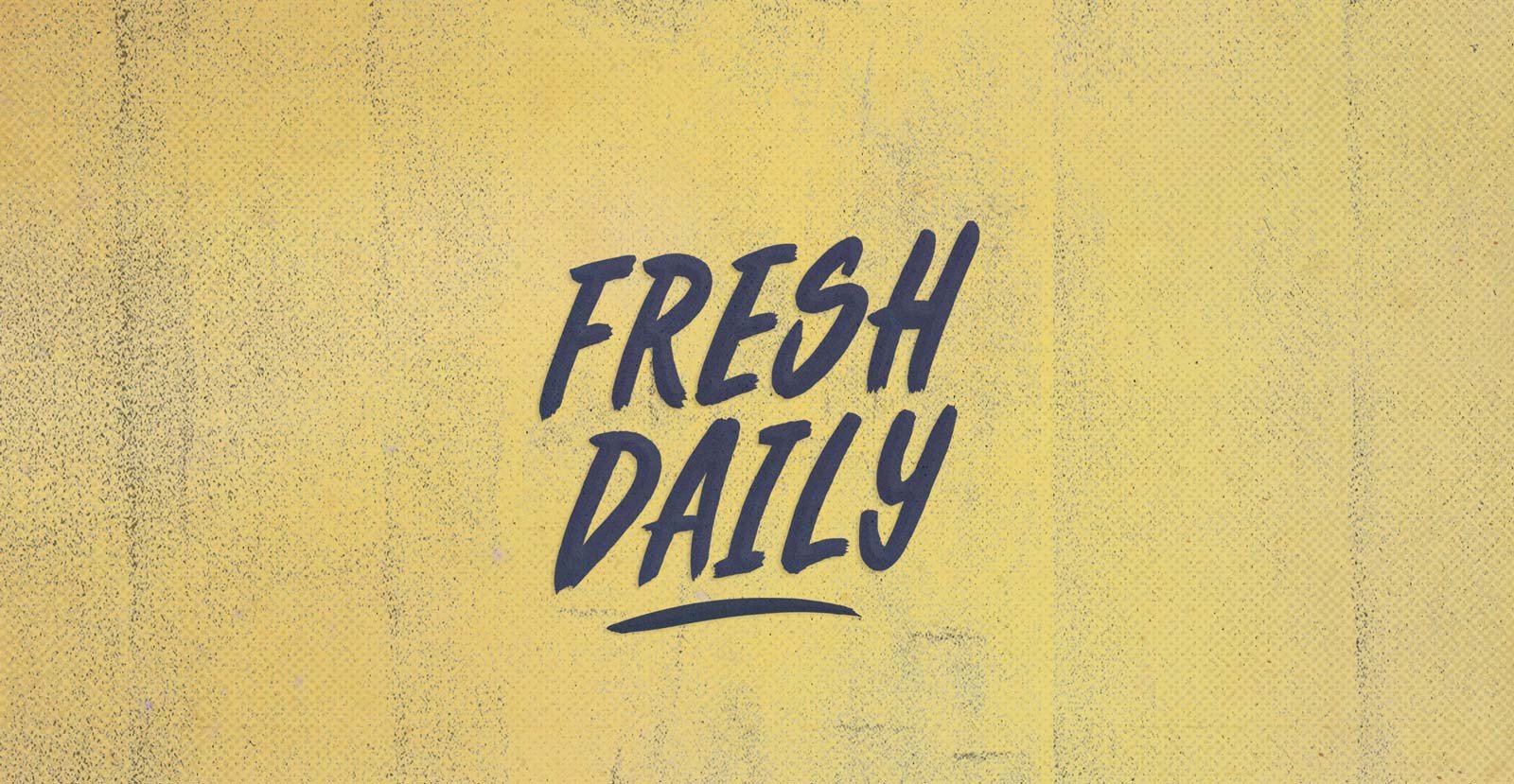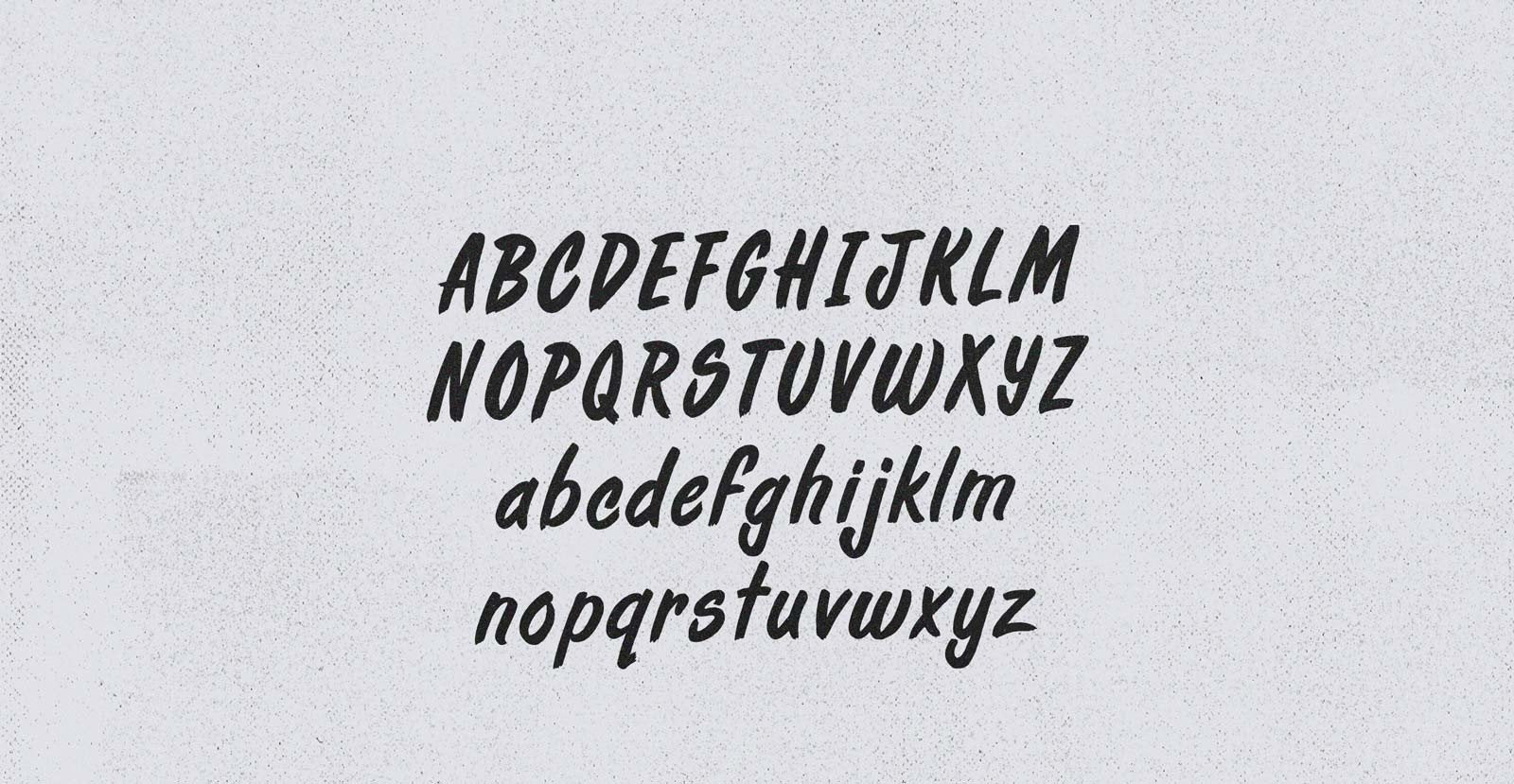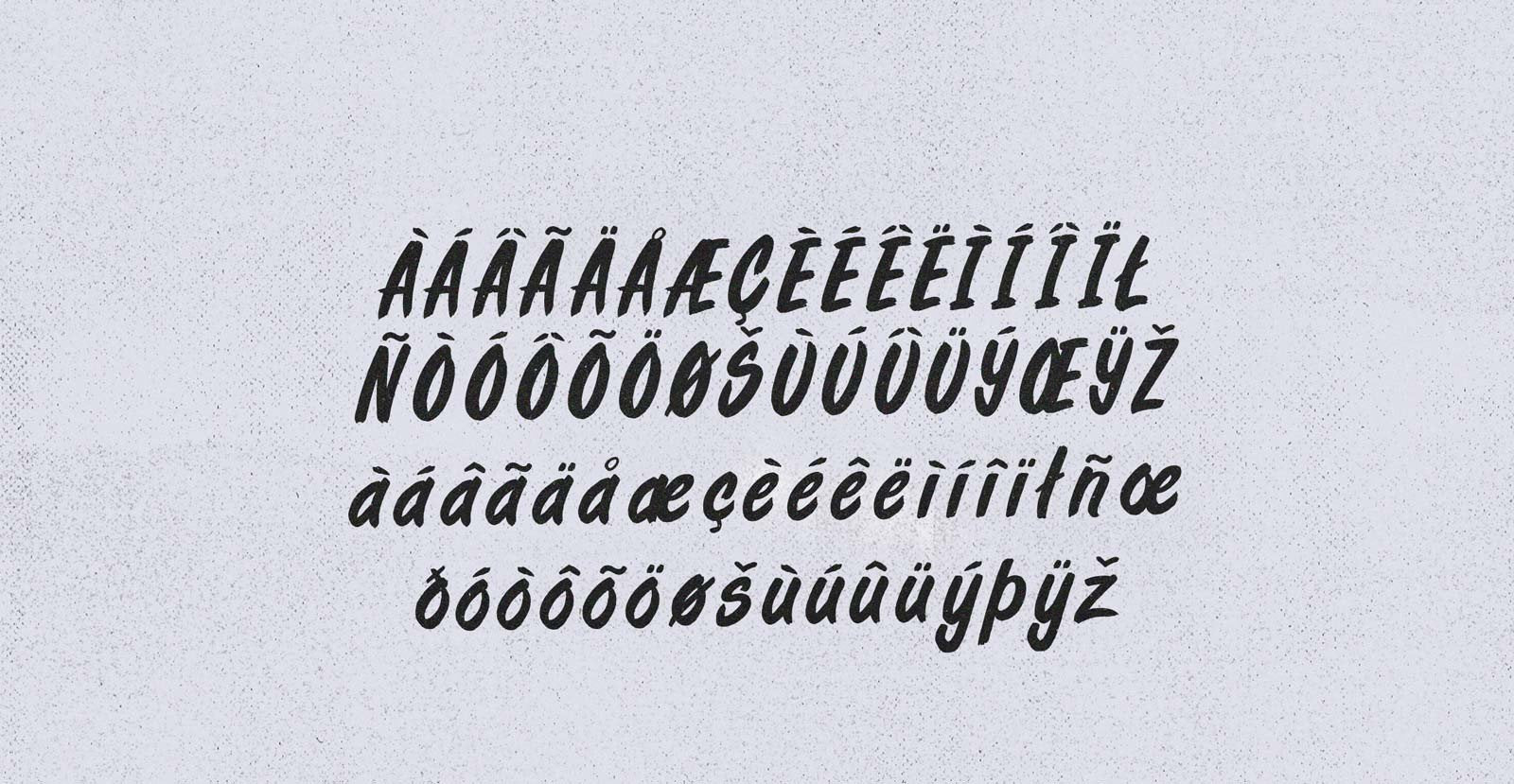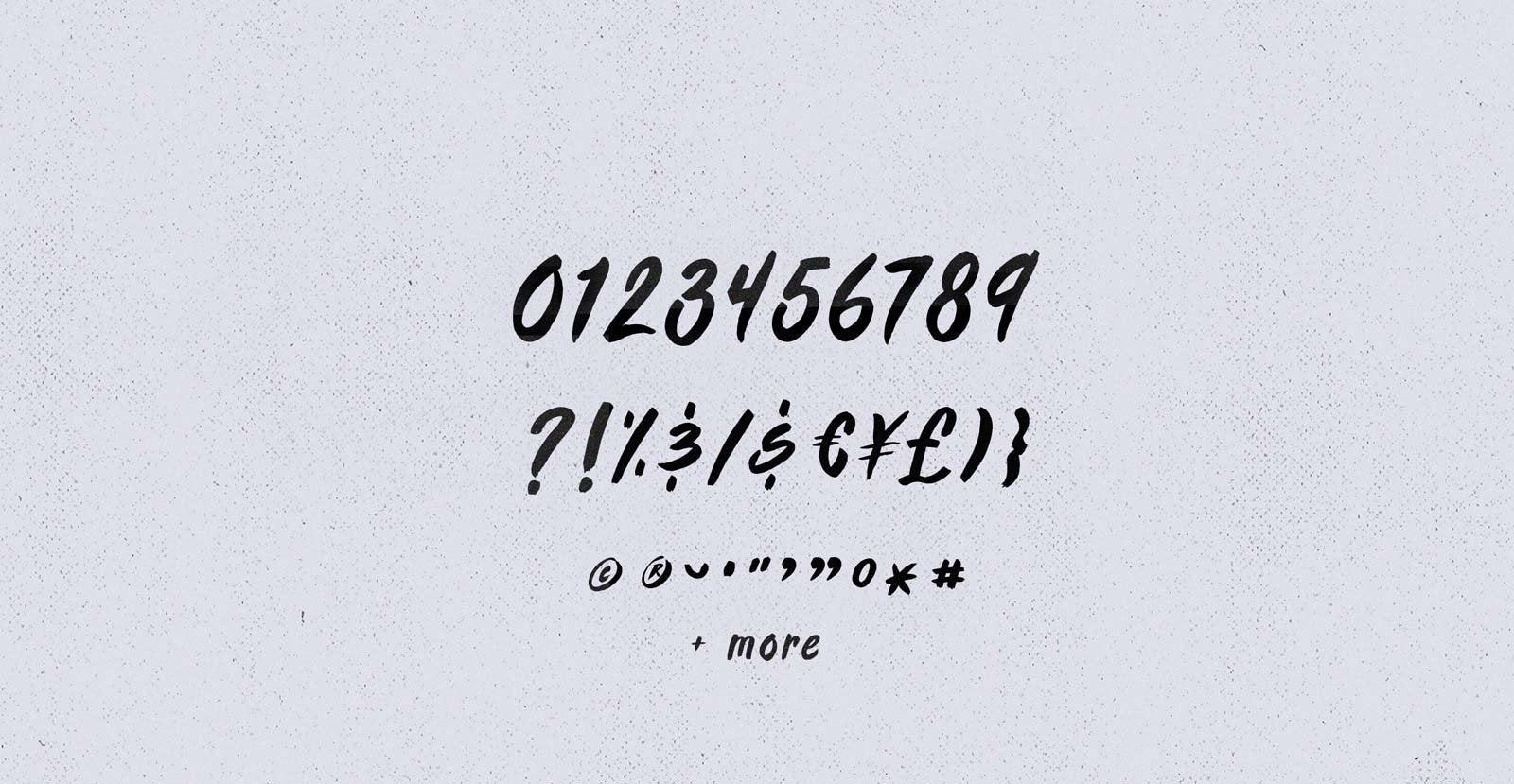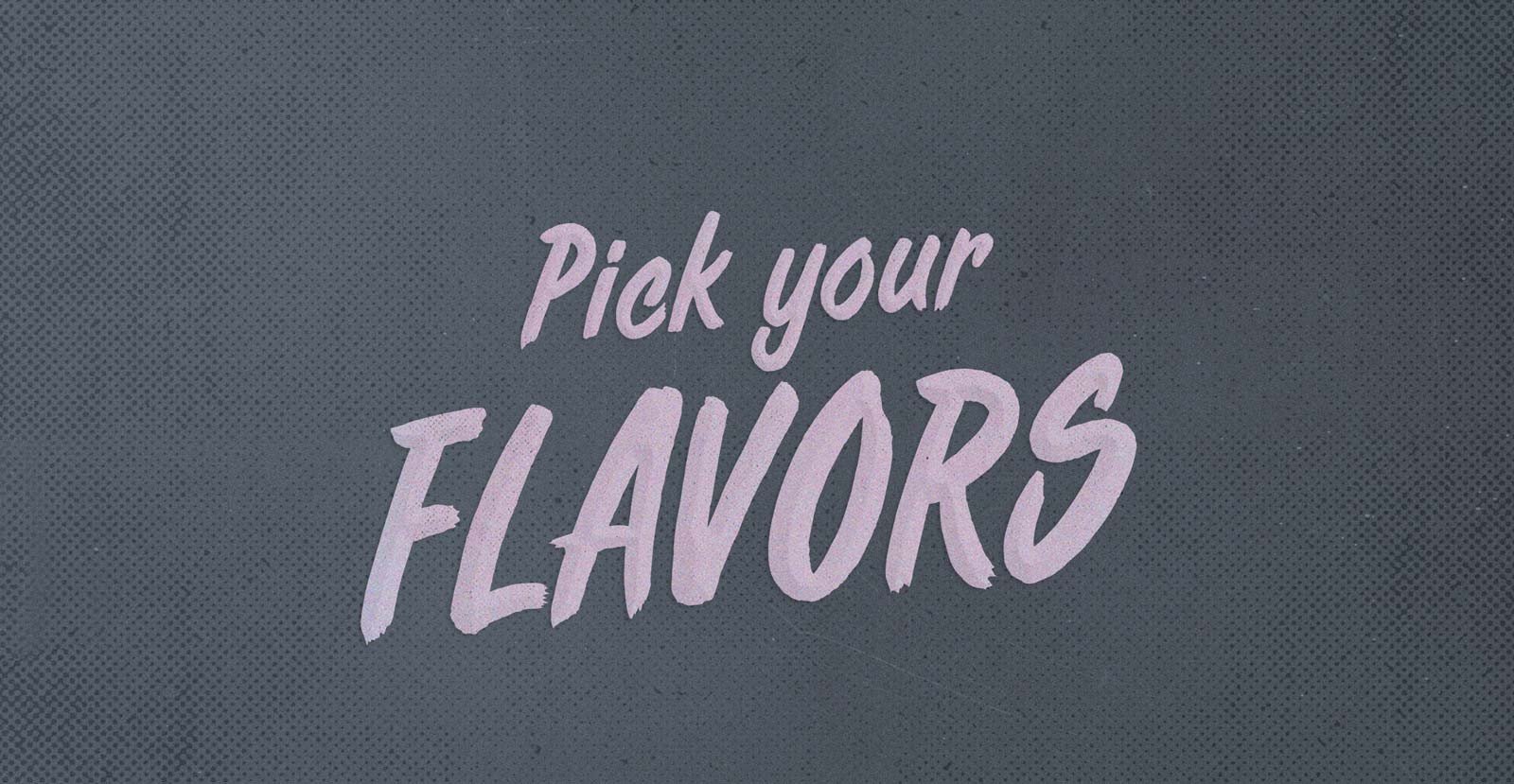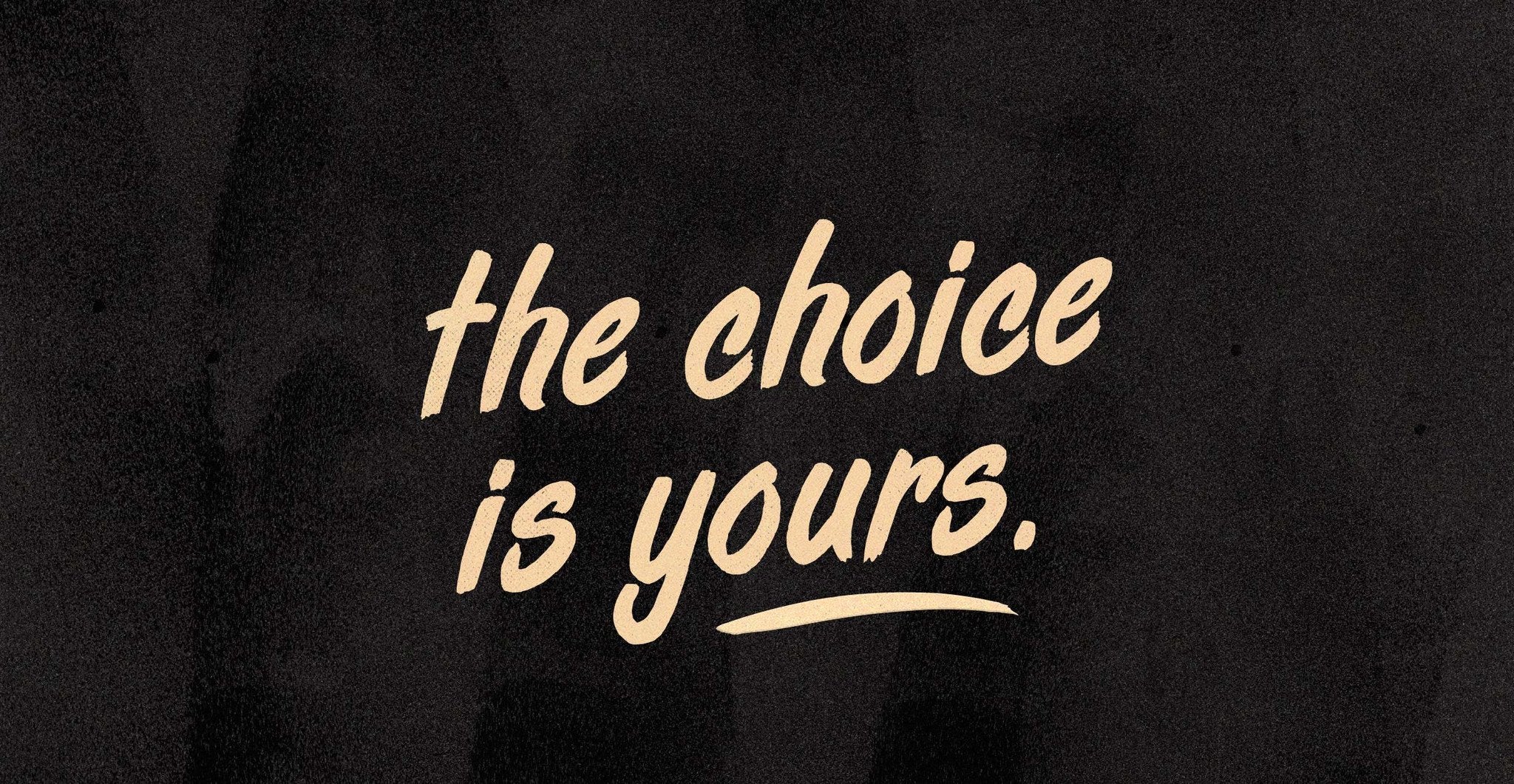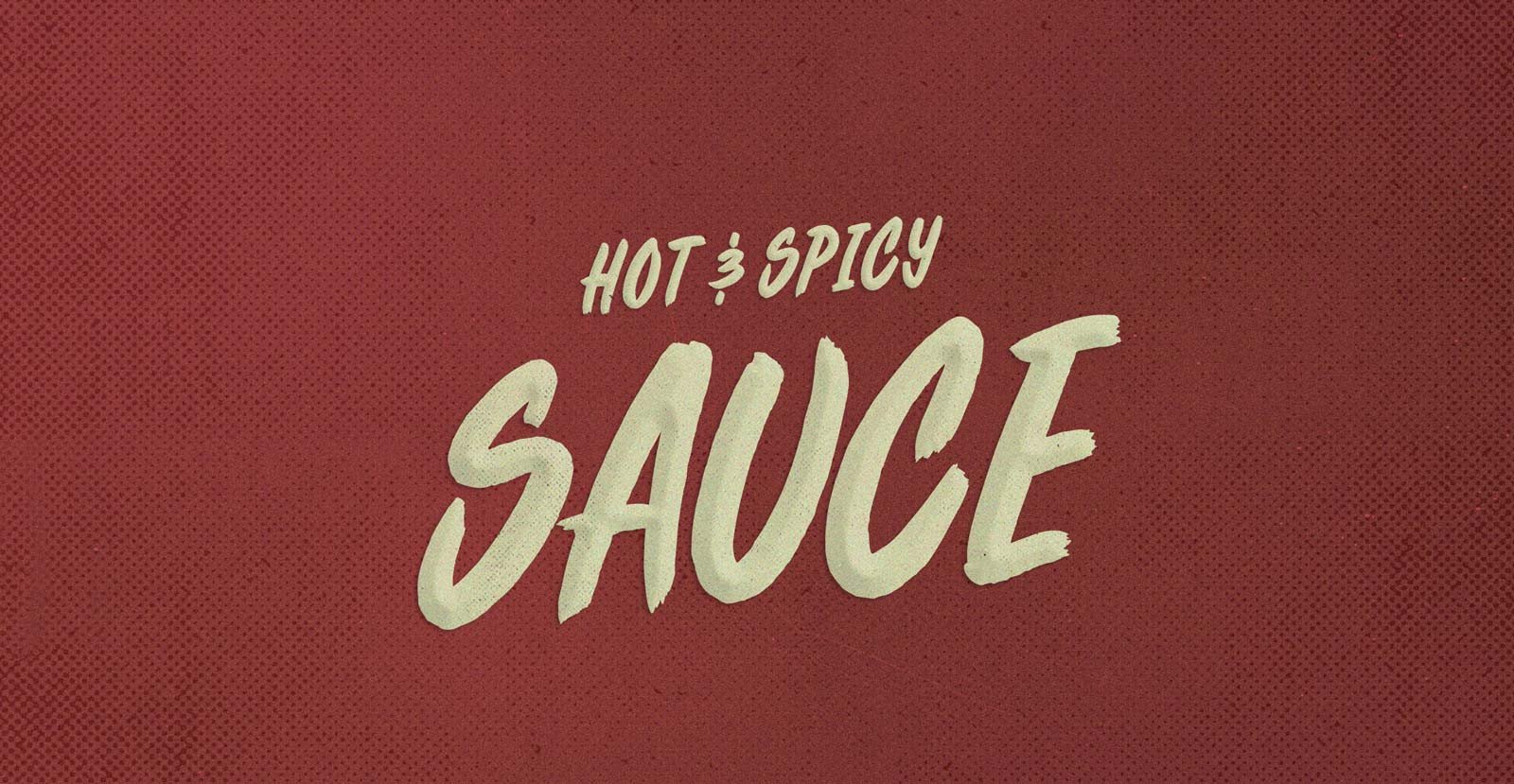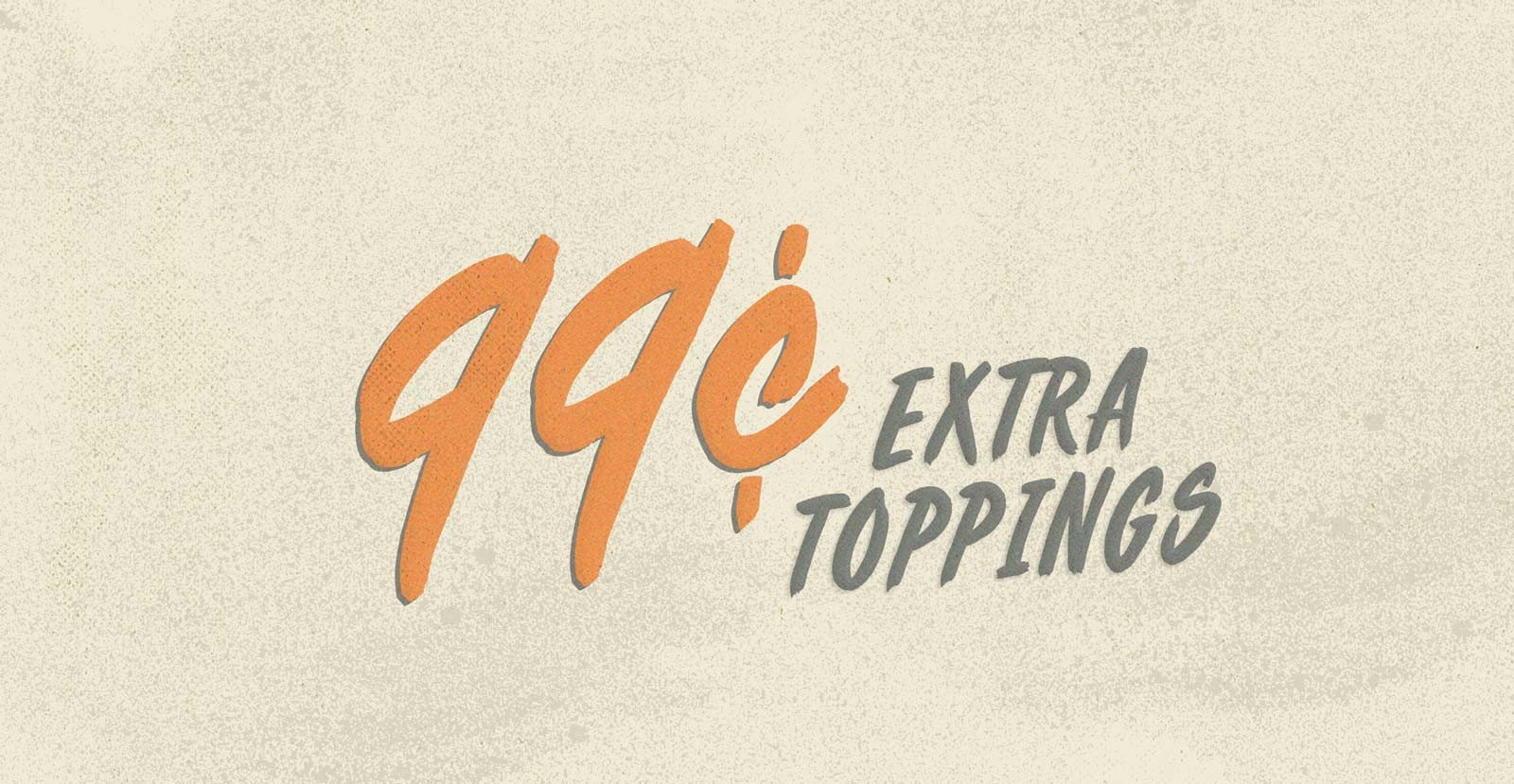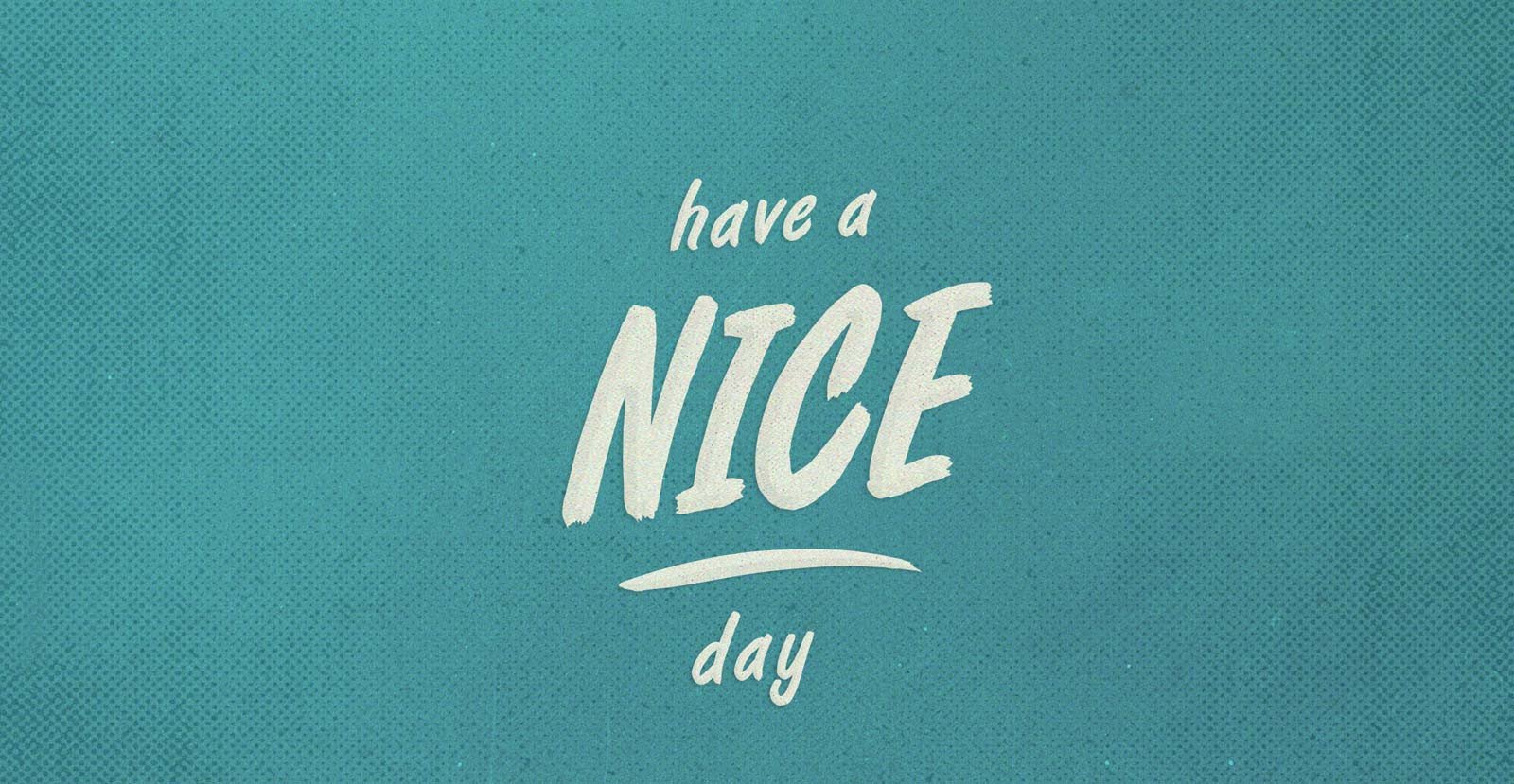
Fresh Daily
Order up! Right out of the oven: A bold taste with big flavor! Here for your enjoyment, it's the finest type served Fresh Daily. Made to order and only from BLKBK!